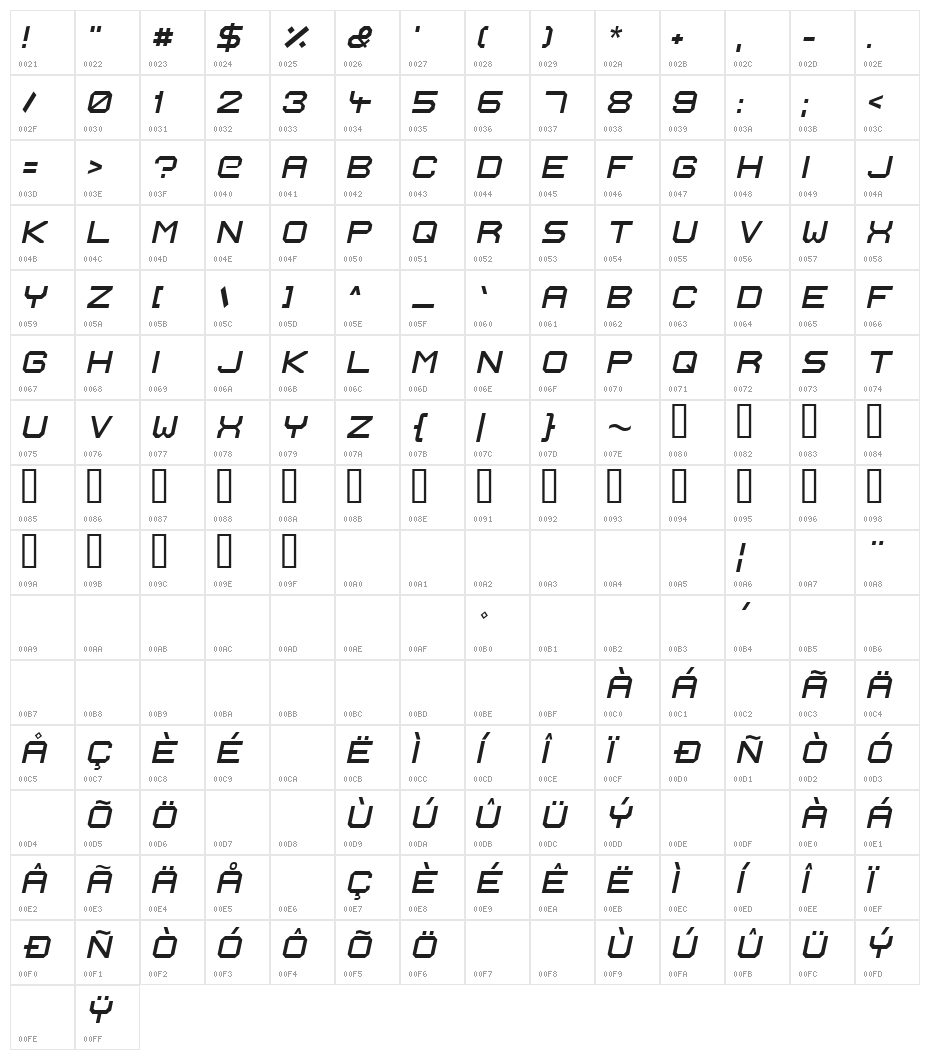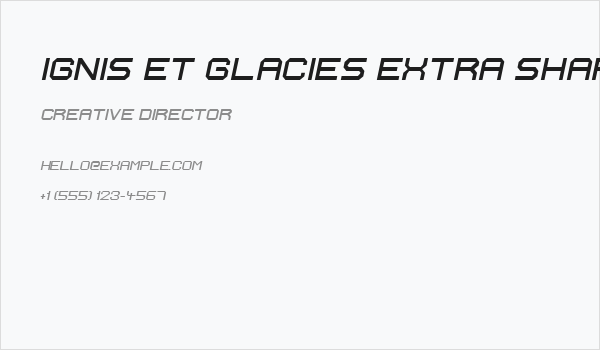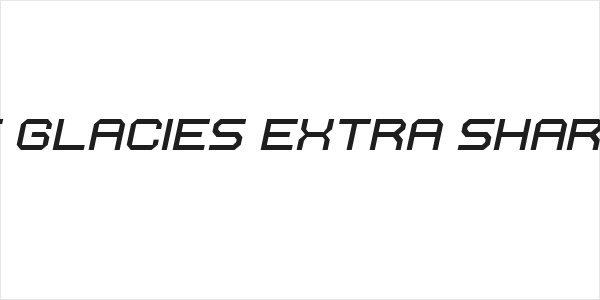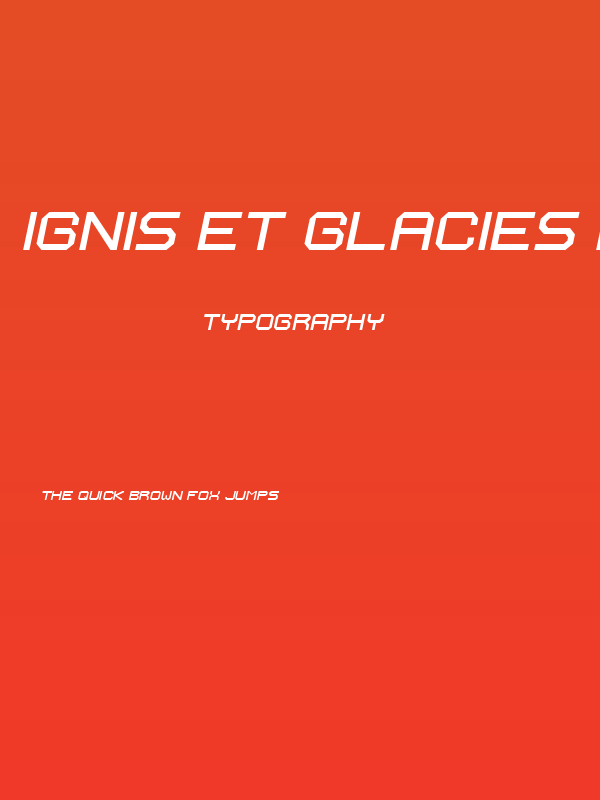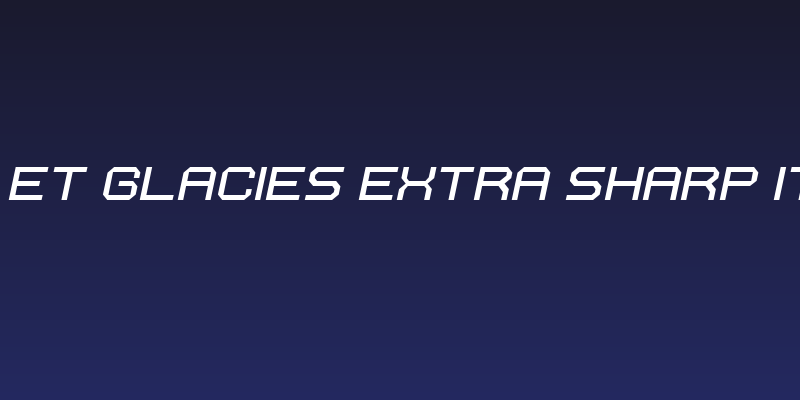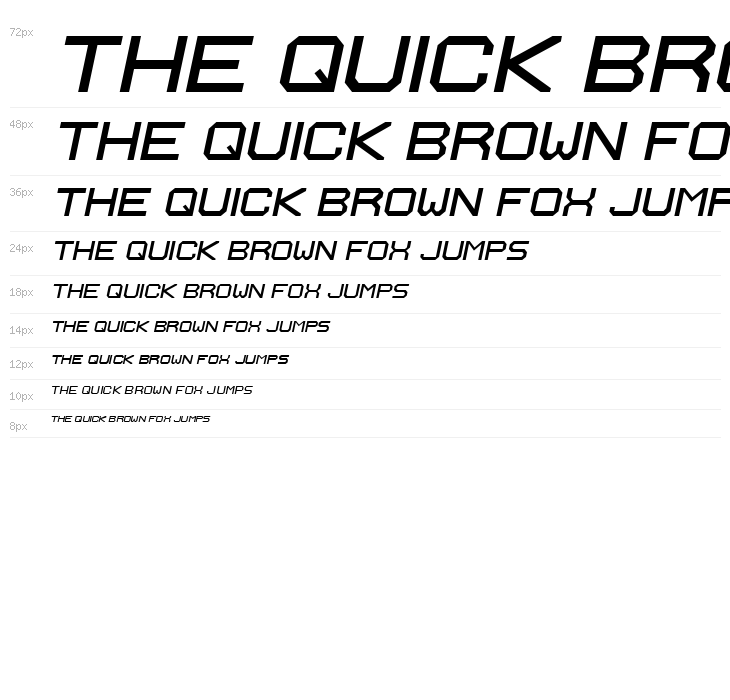
Ignis et Glacies Extra Sharp Italic Font
Ignis et Glacies Extra Sharp Italic Description
This font features a sharp, angular design with a distinct italic slant, giving it a dynamic and futuristic appearance. The characters are crafted with precision, showcasing a geometric style that emphasizes sharp edges and clean lines. The uppercase and lowercase letters maintain a consistent style, with a slight forward tilt that adds a sense of motion. Numbers and special characters are designed to match the overall aesthetic, ensuring uniformity across all elements. The font's unique style makes it suitable for projects that require a modern and edgy look.
Proposed ProjectsIdeal for tech branding, sci-fi themed designs, video game titles, and modern advertising.